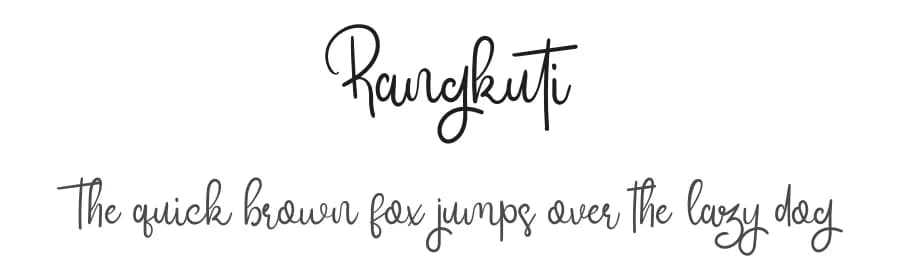
About Rangkuti Font
Rangkuti Specifications
| Font Family | Rangkuti |
| Full Name | Rangkuti |
| Version | 1.012 |
| Glyph Count | 220 glyphs |
| PostScript Name | RangkutiRegular |
| Designer | Yayan Sihwadi |
Rangkuti supports 217 languages.
Rangkuti Font is a script font that shines as a display or heading face. Pair it with a clean sans-serif or serif font for body text β the contrast creates a clear hierarchy while the two styles stay balanced and easy to read.
Rangkuti Font
by Yan Studio